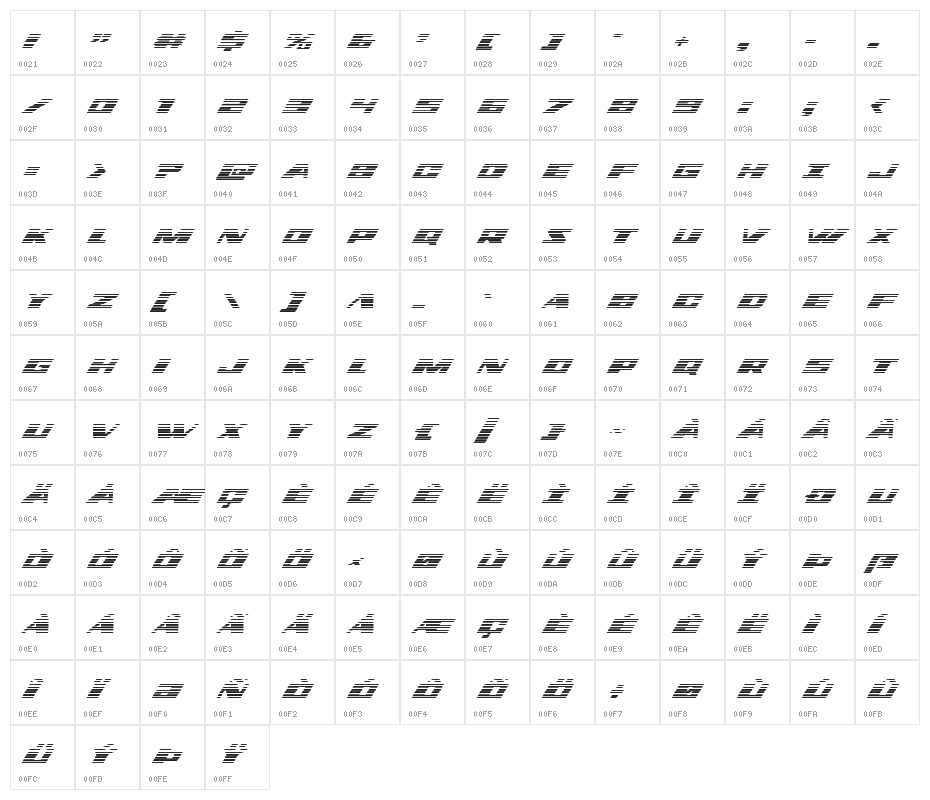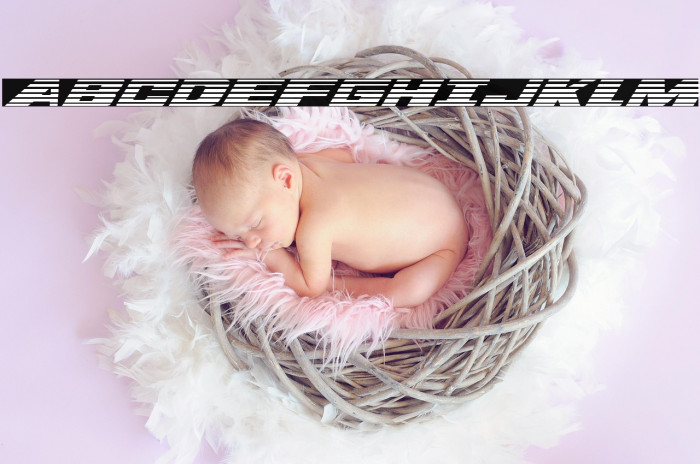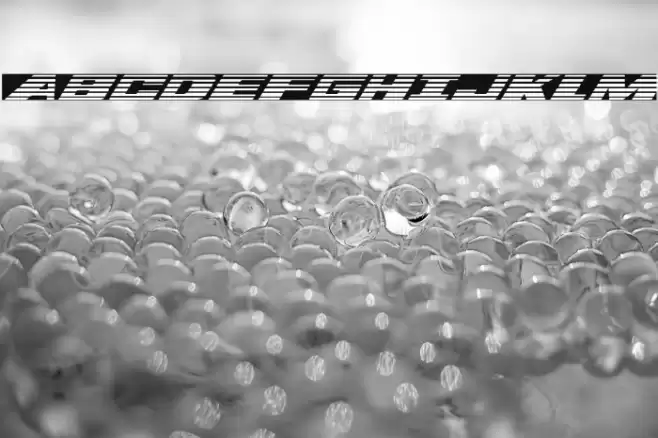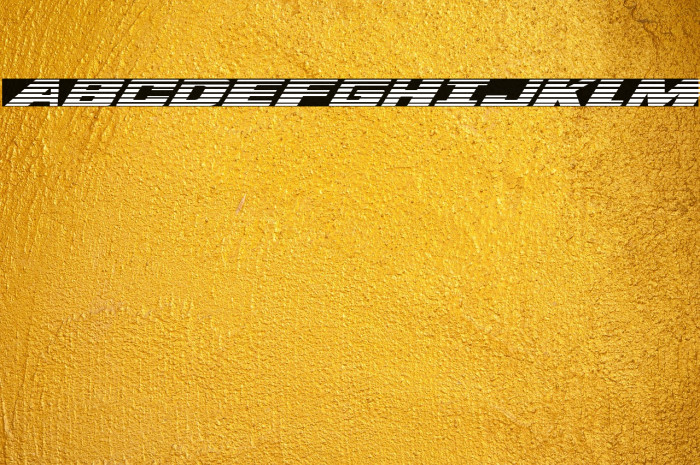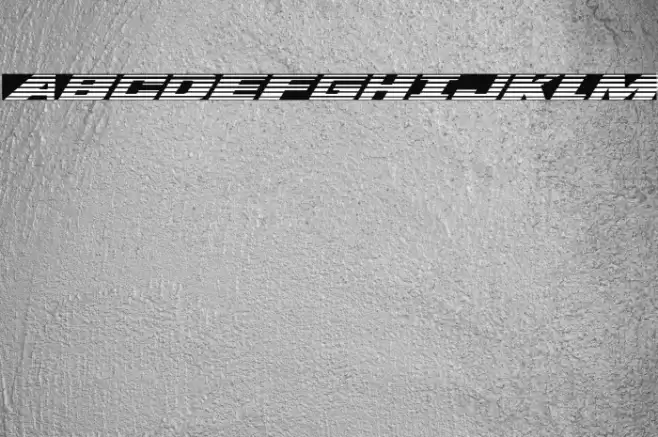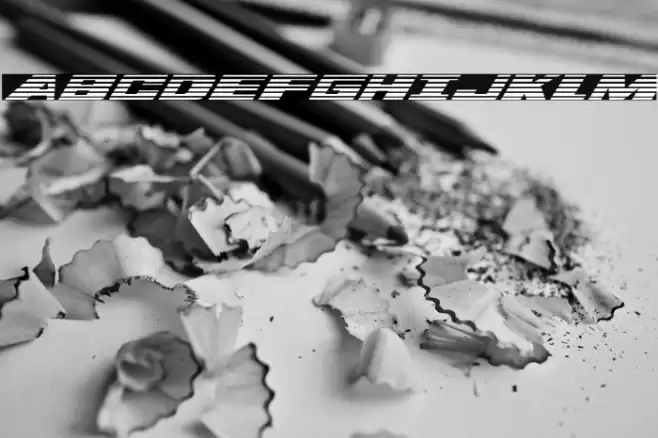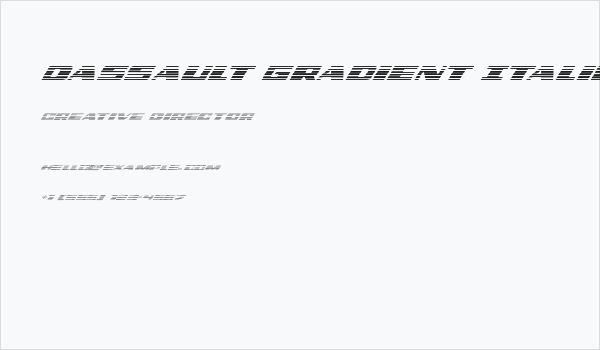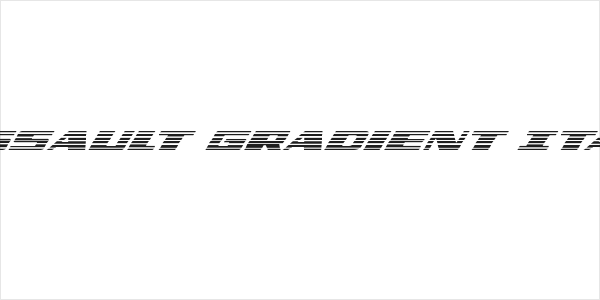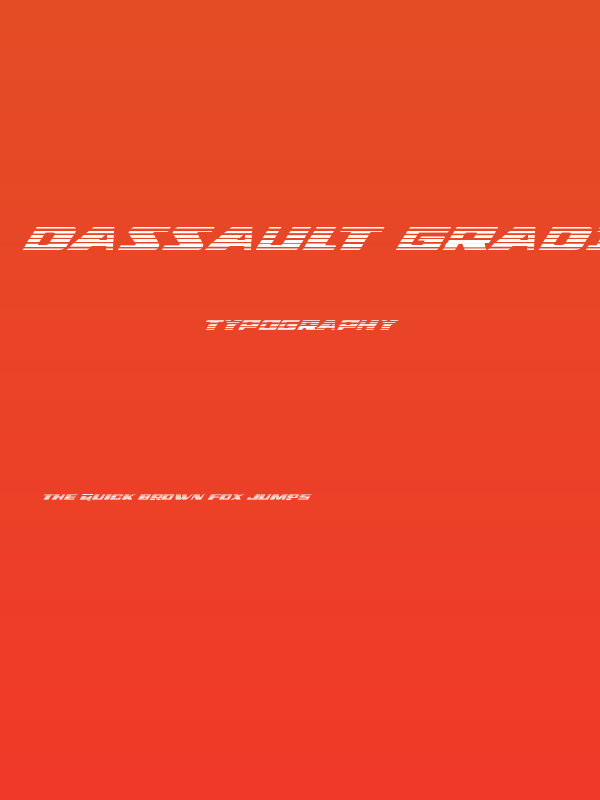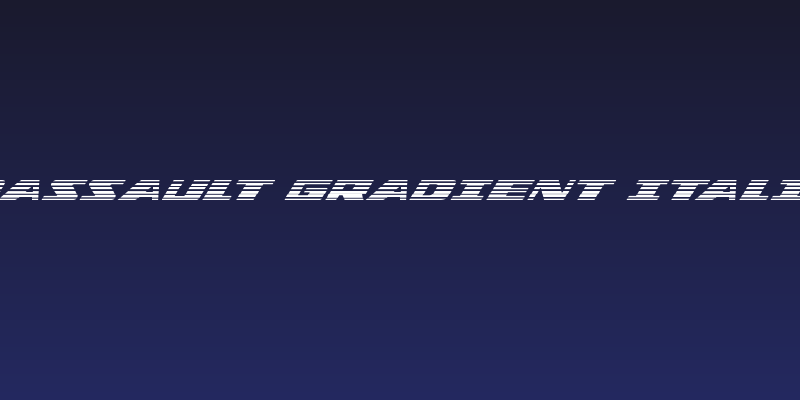
Dassault Gradient Italic Font
Dassault Gradient Italic Description
This font features a dynamic, italicized style with a distinct gradient effect created by horizontal lines running through each character. The design gives a sense of movement and speed, making it ideal for projects that require a futuristic or high-tech aesthetic. The uppercase and lowercase letters, as well as numbers and special characters, maintain a consistent slant and line pattern, enhancing the cohesive look. The boldness of the strokes ensures readability while the unique line pattern adds a decorative touch.
| Proposed Projects | Ideal for technology branding, sports team logos, automotive advertisements, and futuristic-themed designs. |